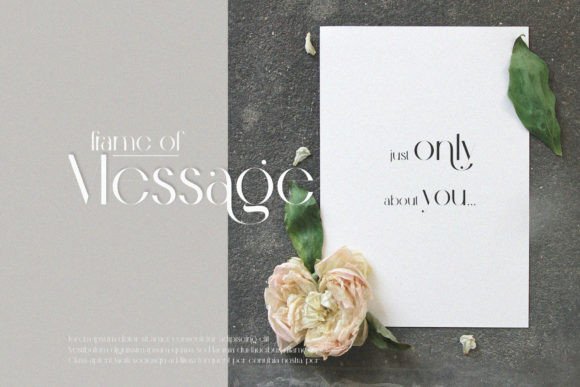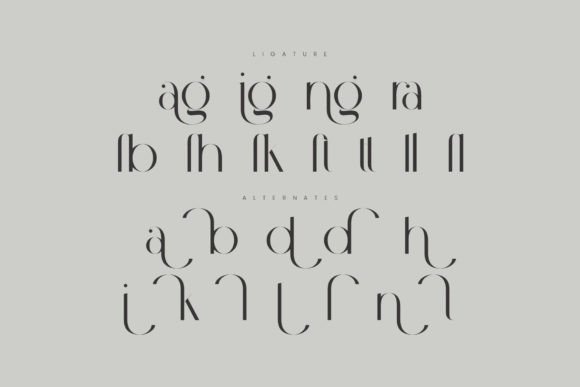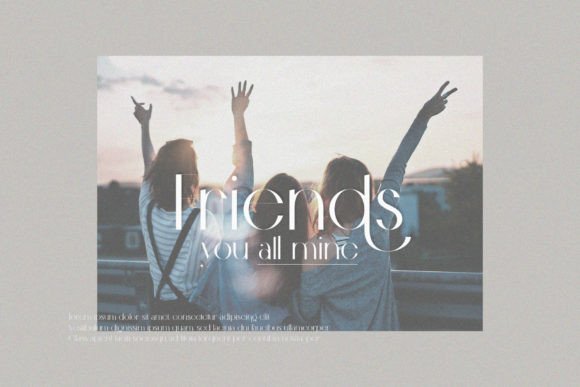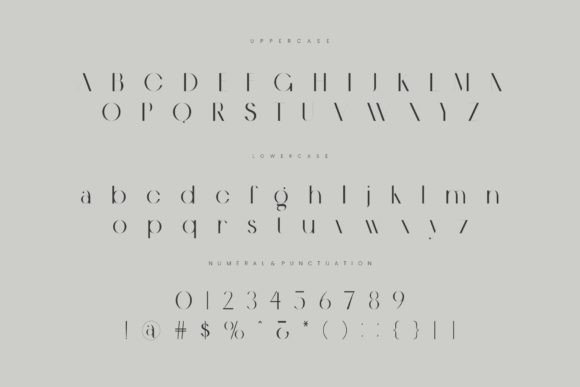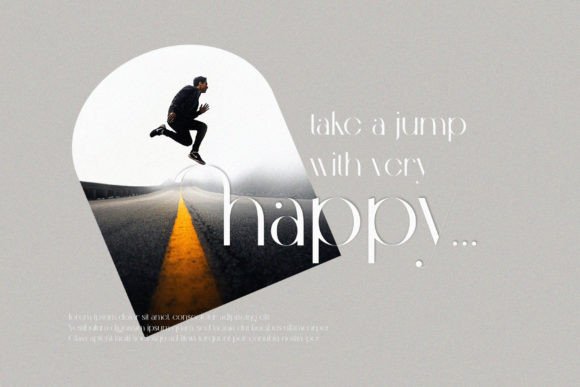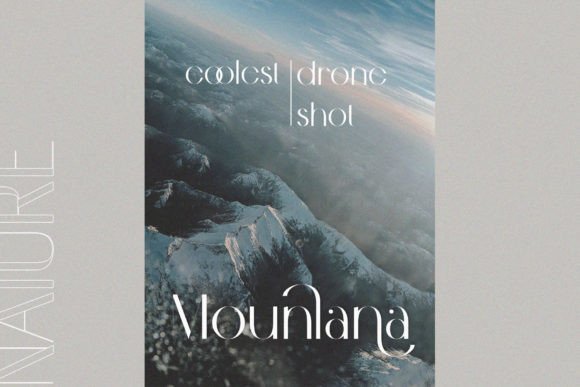
The Elusive Font: A Designer’s Quest for the Perfect Typeface
I still remember the countless hours I spent searching for the perfect font for a luxury brand project. My client wanted something sophisticated, elegant, and feminine, but I was coming up empty-handed. That was until I stumbled upon the Gaolne Font – a game-changer for any designer looking to elevate their typography. In this article, I’ll share my experience with Gaolne, its features, and how to make the most of this beautiful sans serif font.
First Impressions: What I Love About Gaolne Font
Gaolne Font is a masterpiece of modern typography, exuding a sense of luxury and sophistication. Here are a few things that I absolutely love about it:
- ✨ Fashionable touch: Gaolne has a certain je ne sais quoi that makes it perfect for high-end projects.
- ✅ Elegant and feminine: This font is designed with luxury and elegance in mind, making it ideal for projects that require a touch of sophistication.
- 💡 PUA encoded: With PUA encoding, accessing glyphs and ligatures is a breeze, giving you more creative control.
- 📦 Versatile: Gaolne is suitable for a wide range of projects, from branding and advertising to packaging and editorial design.
The Not-So-Perfect Font: Small Quirks and Limitations
While Gaolne Font is an exceptional typeface, it’s not without its quirks. Here are a few things to keep in mind:
- 🤔 Limited use in body text: Due to its elegant and refined nature, Gaolne might not be the best choice for lengthy body text.
- ⚠️ Requires OpenType features: To get the most out of Gaolne, you’ll need to use OpenType features, which can be a bit tricky for beginners.
The Story Behind Gaolne Font
Gaolne Font was designed with luxury and elegance in mind. Its creator aimed to craft a typeface that would evoke a sense of sophistication and refinement. The result is a beautiful sans serif font that’s perfect for high-end projects.
| Font Name | Gaolne Font |
| Author | Alfinart |
| What is Gaolne Font? | Gaolne Font is a sophisticated and elegant sans serif font designed for luxury and high-end projects. |
| Is Gaolne Font PUA encoded? | Yes, Gaolne Font is PUA encoded, making it easy to access glyphs and ligatures. |